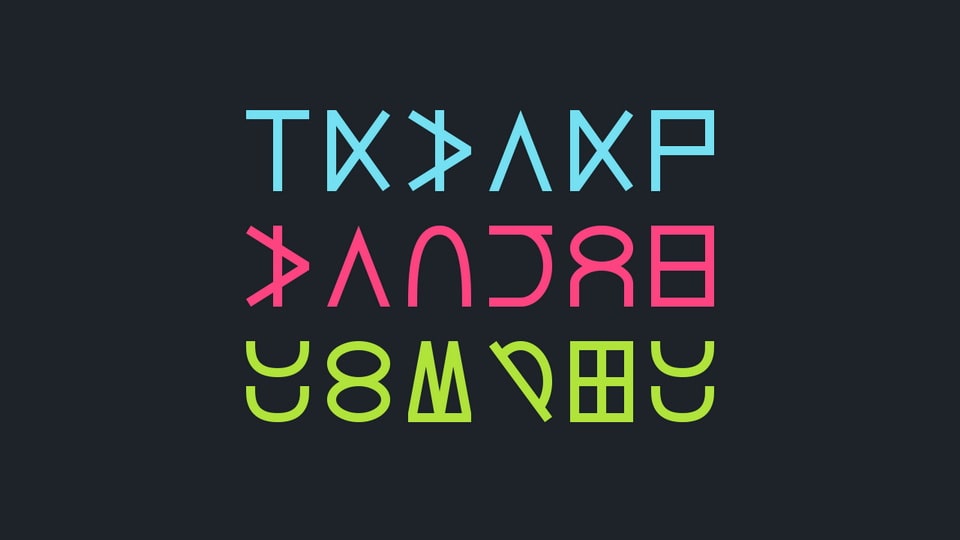
Feb 2, 2025DisplayLucius Cipher Font Lucius Cipher is a mystery display font inspired by alien typography. With its unique look the font is suitable for futuristic, cryptography and sci-fi projects. Font DetailsDesigned by: GGBotWebsiteLicense: Free for commercial use, OFL Download Lucius Cipher FontFile size: 11.63 KBCreated: February 16, 2025Updated: February 16, 2025 Download Explore similar fonts Broken Glass Font Lokistar Font CS Ranger Stamp Font Flowserif Font Boneliness Line Font Donut Cookie Font # Creative# Decorative# Unique More fonts by GGBotFriendly Sans FontPinzelan FontZector FontAchtung Bravo FontLiber Struct FontX Company FontRijusans FontWiltype Font